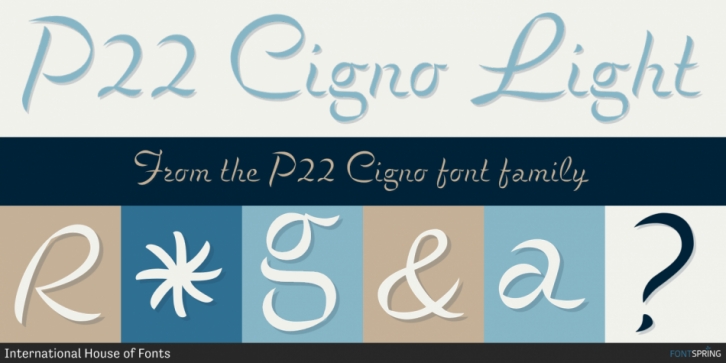
P22 Cigno is a script font family. This typeface has two styles and was published by International House of Fonts.
P22 Cigno is a new digitization of the 1950s Italian typeface by Aldo Novarese for the Nebiolo foundry. This semi-formal script has a definite mid-century European flavor suitable for menus, invitations and poster work.
Along with the accurate rendition of the regular weight, designer Colin Kahn has added a lighter companion font for another variation on Cigno. Both fonts feature a full Western European character set.